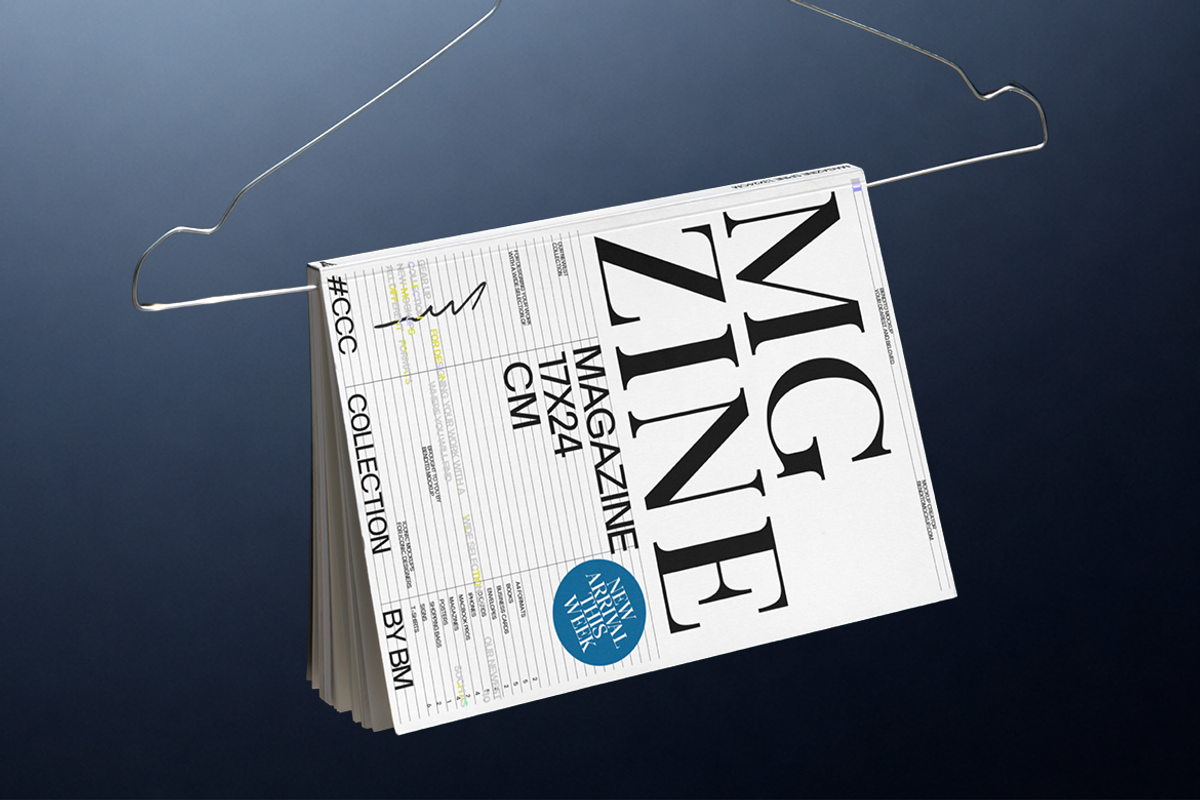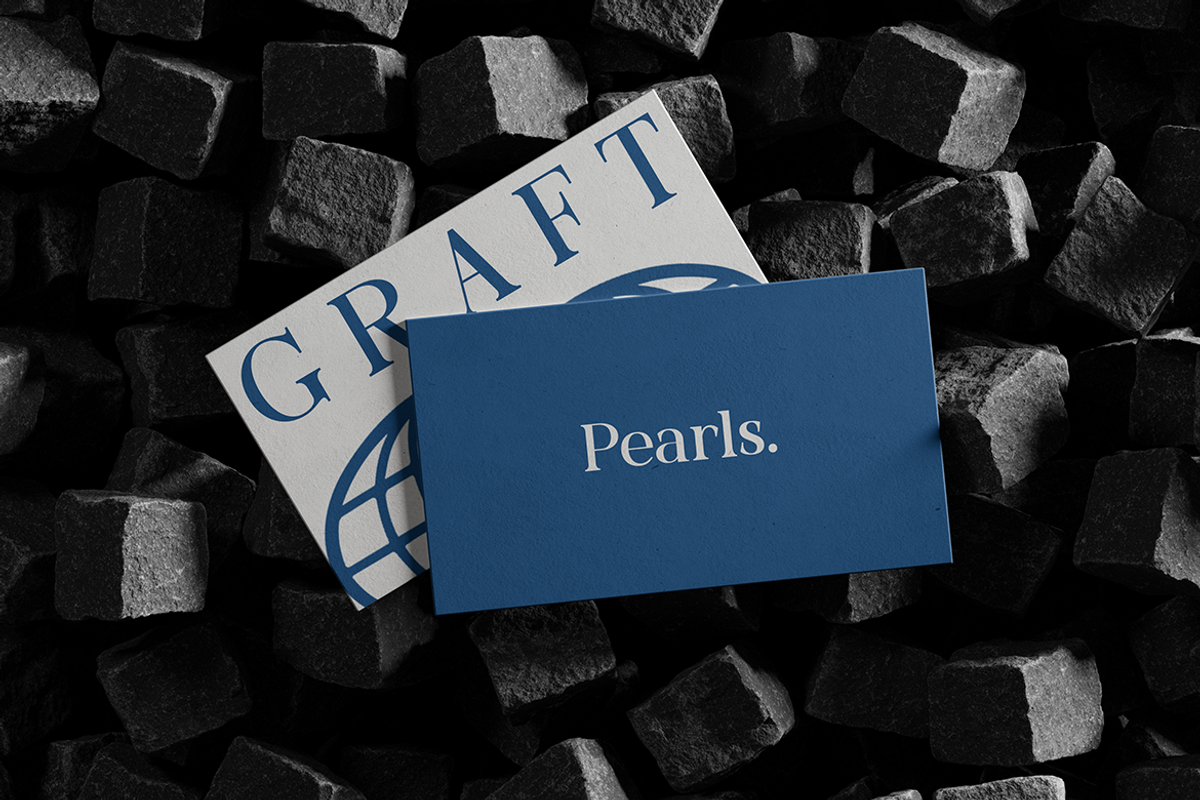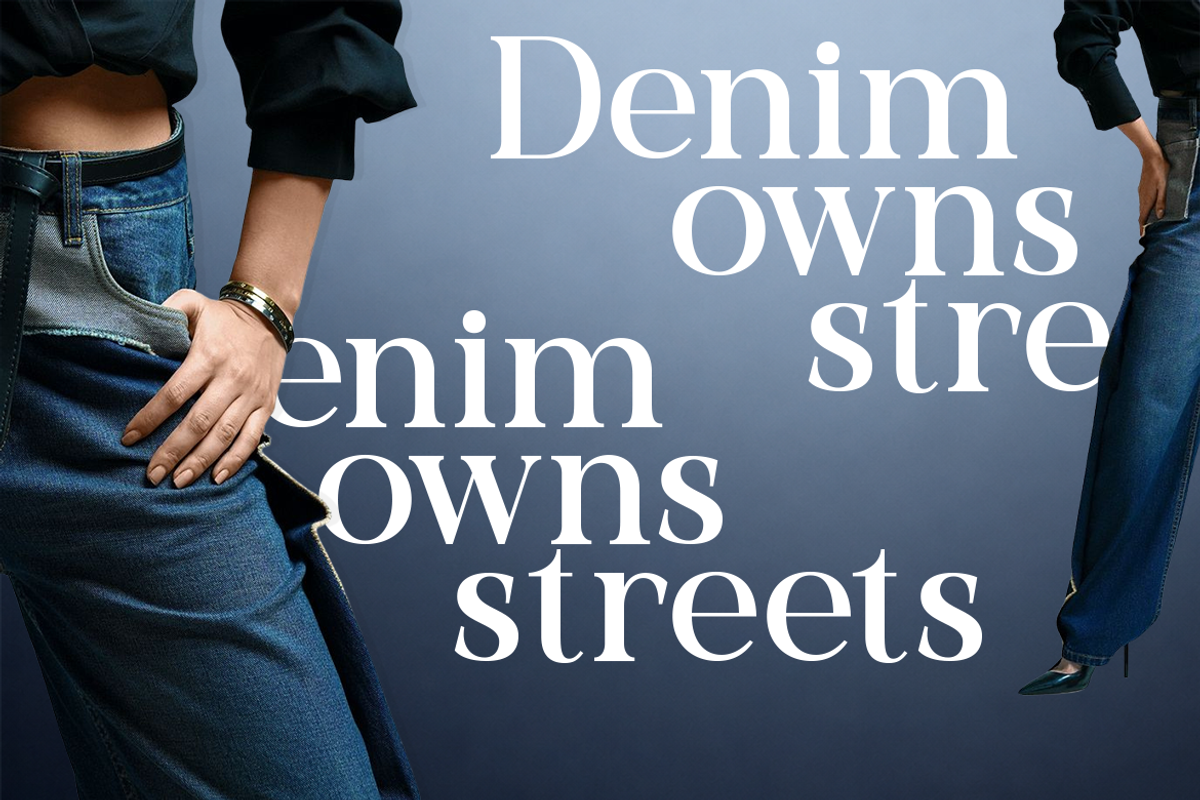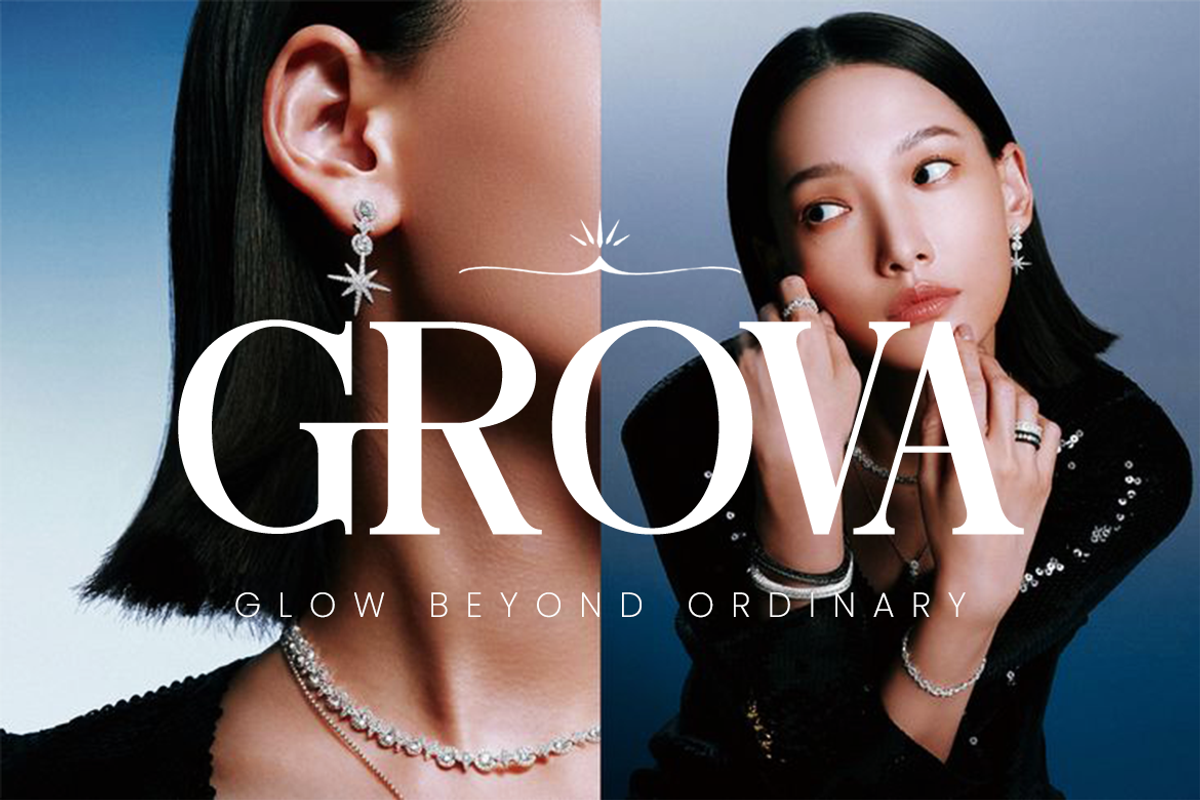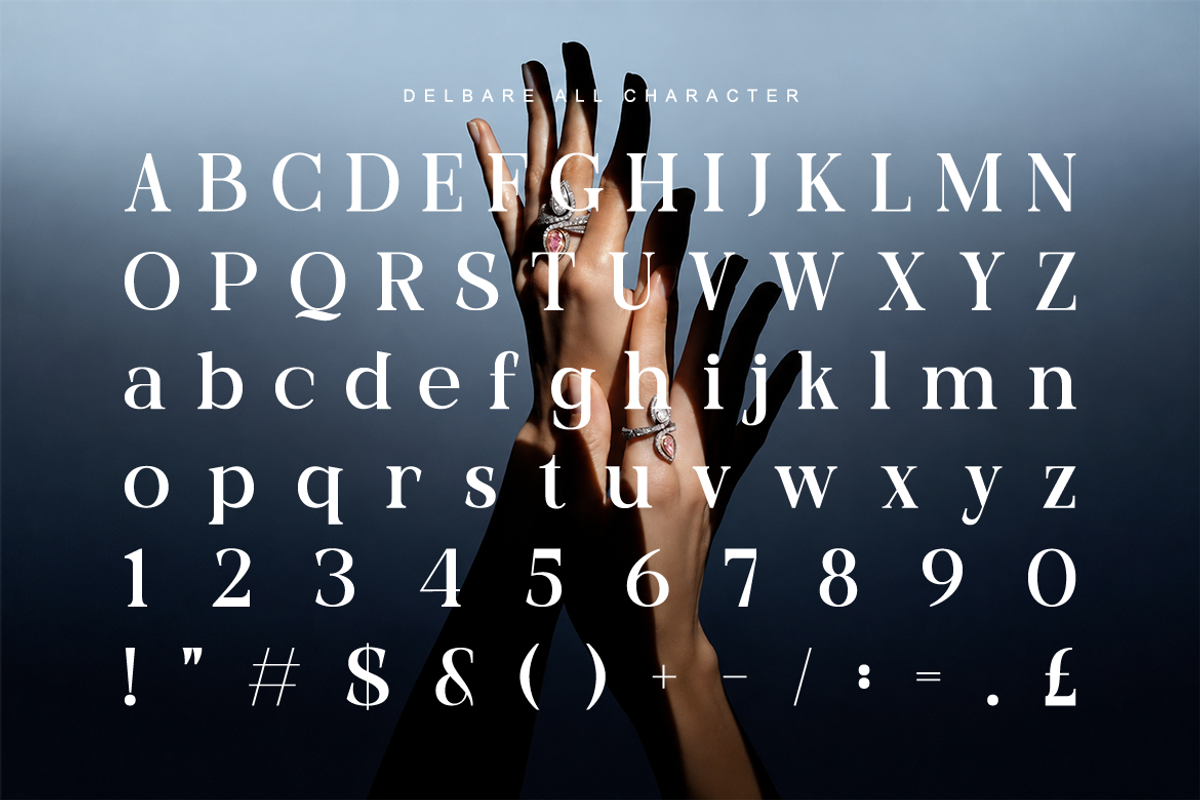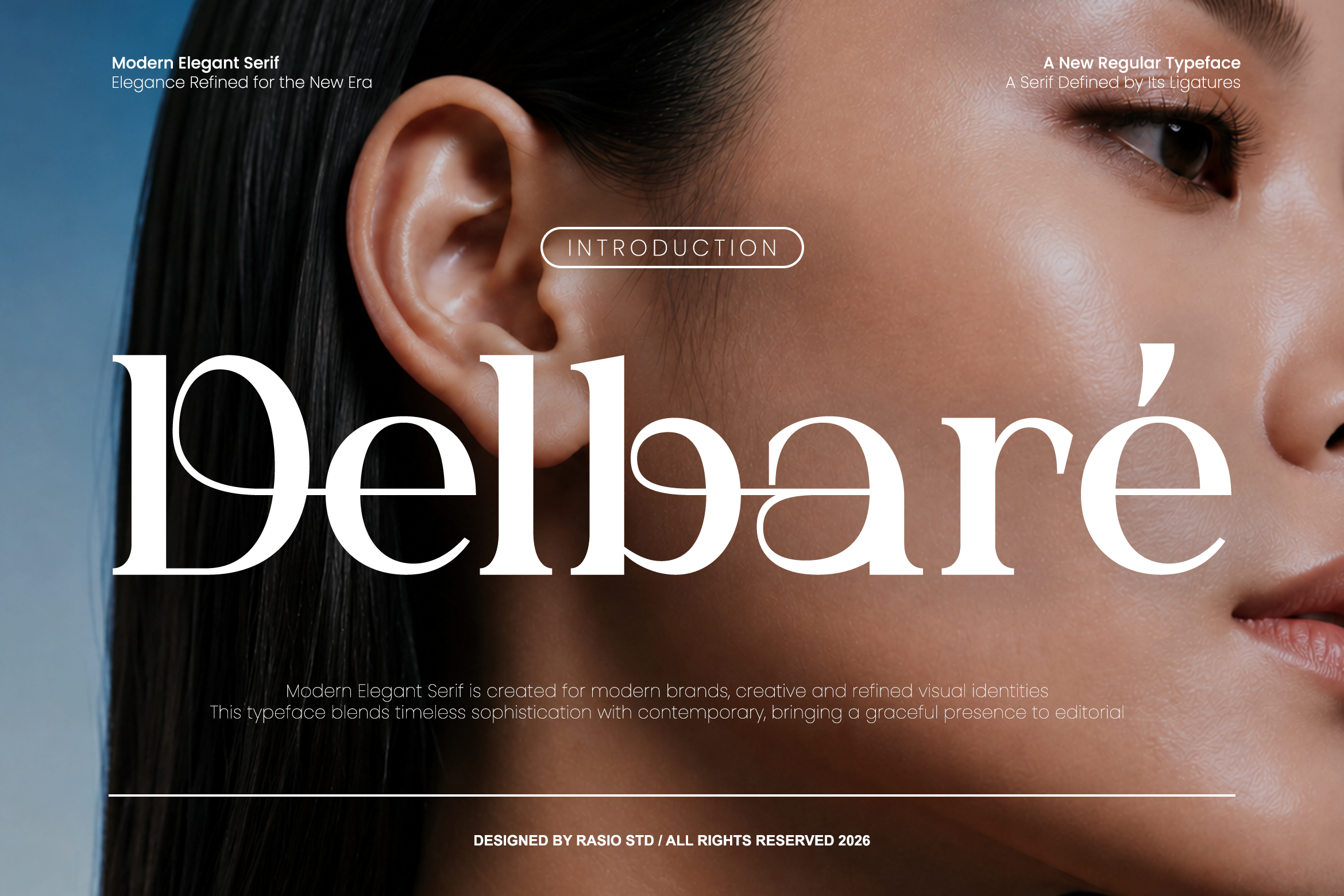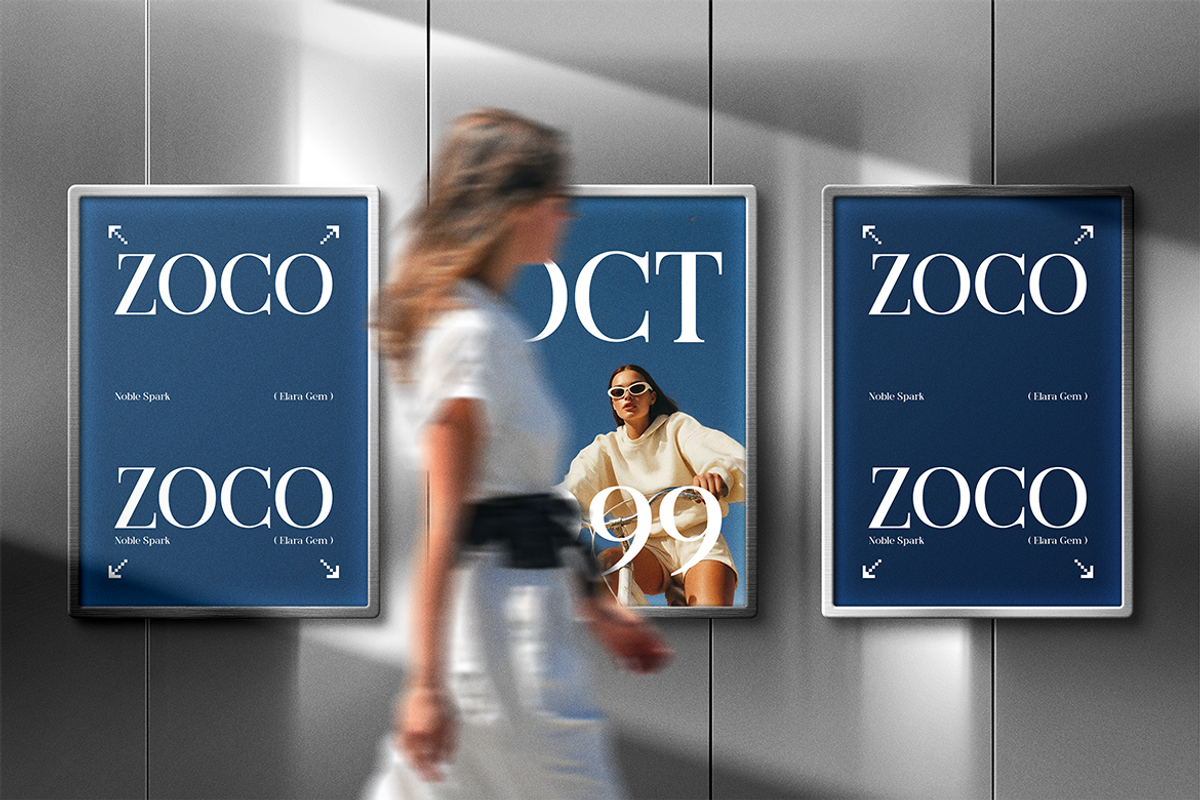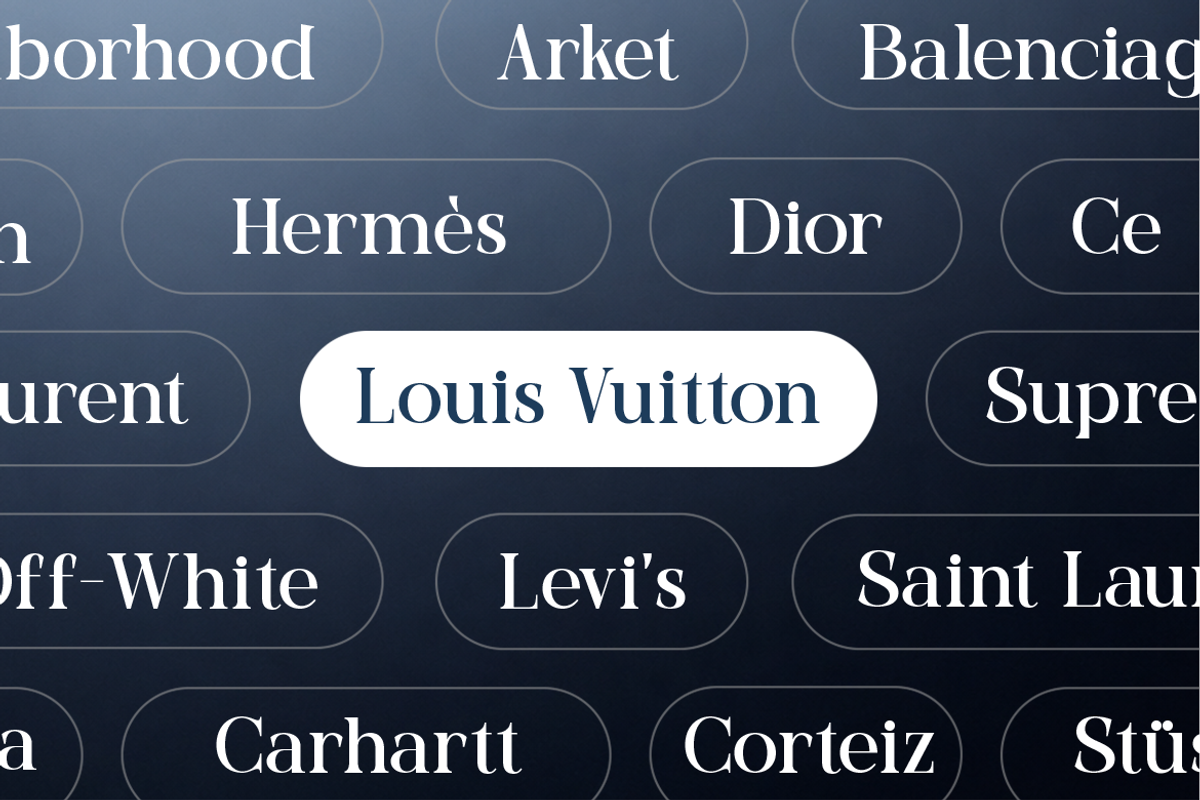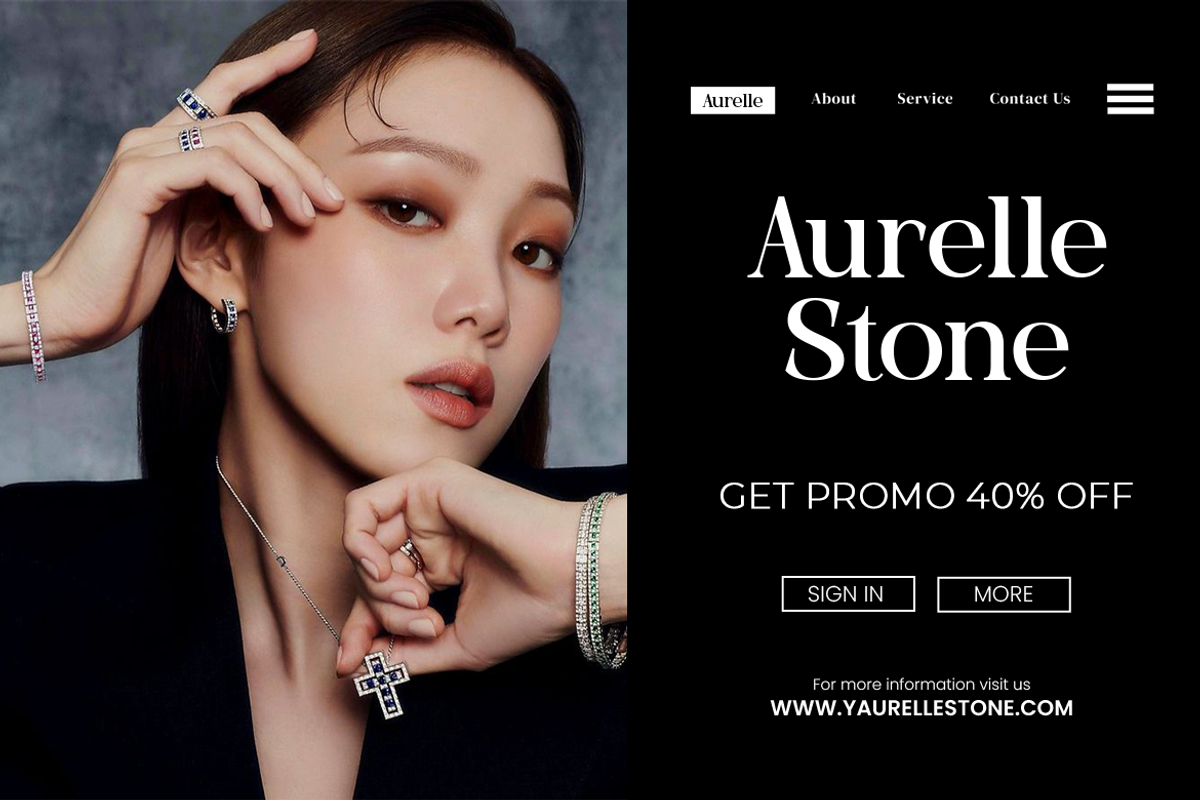
Delbare Modern Elegant Serif Font
Delbare Modern Elegant Serif_ _is a contemporary serif typeface characterized by graceful ligatures, high-contrast strokes, and carefully crafted proportions. The letterforms blend flowing curves with precise details, creating a distinctive visual rhythm that feels polished and enduring. Unique character connections add personality and movement to words, while the balanced structure ensures clarity and strong visual presence. Its expressive forms make typography feel more intentional, transforming simple text into a striking design element.
Designed for display-focused compositions, Delbare excels in creating memorable logos, wordmarks, and headline treatments where character and style are essential. The ligatures introduce a custom-crafted appearance that enhances branding systems, editorial covers, packaging layouts, and promotional graphics. In print applications, the typeface adds depth and hierarchy to magazines, invitations, and product presentations, while digital environments benefit from its clean readability and distinctive silhouette. Delbare helps create typography that feels confident, polished, and visually engaging without relying on excessive ornamentation.
High-contrast serif construction that creates a graceful and distinctive visual rhythm
Refined ligatures that add character and seamless letter connections
Delicate curves balanced with sharp serif details for a polished appearance
Elegant proportions that enhance sophistication without sacrificing clarity
Smooth transitions between thick and thin strokes for visual refinement
Brand identity systems requiring a distinctive and memorable typographic signature
Fashion editorials, magazine covers, and publication headlines with refined visual impact
Beauty, skincare, fragrance, and jewelry branding projects
Logo design, wordmarks, and monograms enhanced by expressive ligatures
Premium packaging and product labels that benefit from sophisticated typography
Supports numerals, punctuation, and extensive symbol set
Transform ordinary text into a statement with Delbare create unforgettable typography